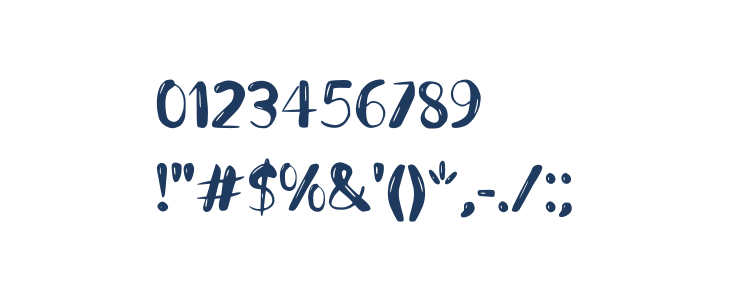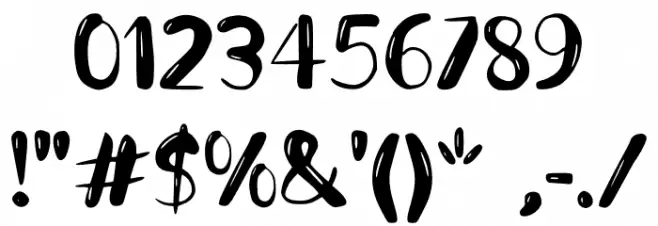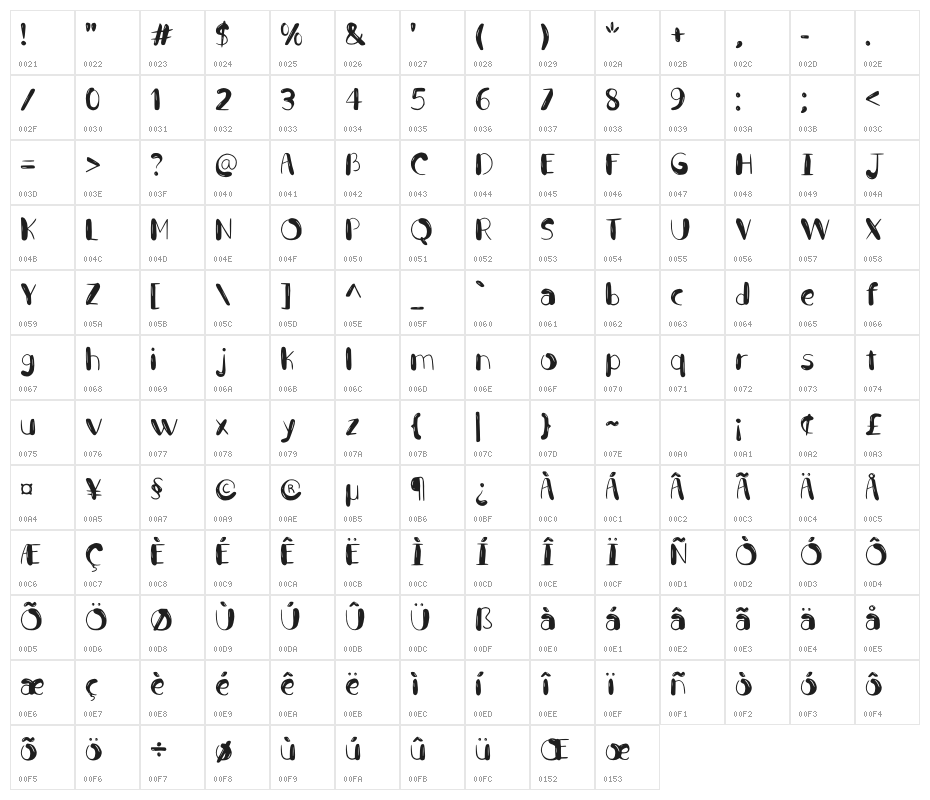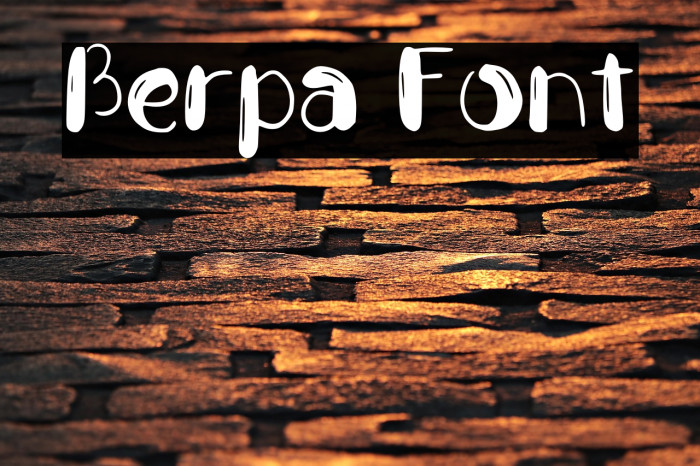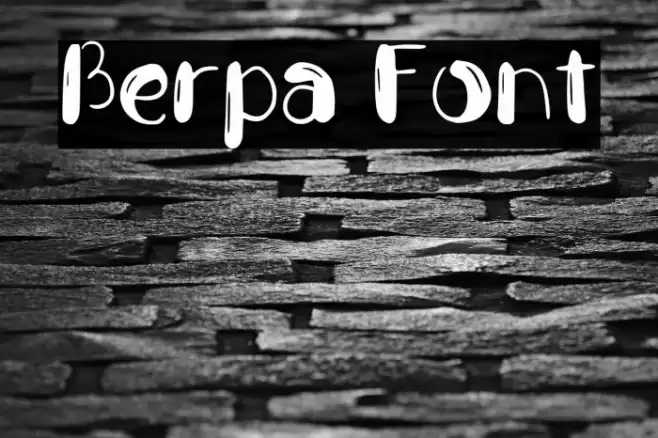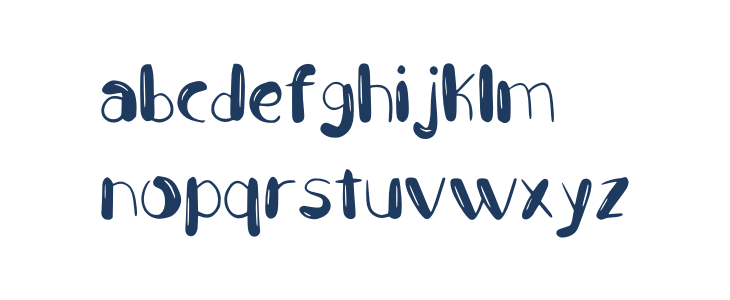
Berpa Font
Berpa Description
This playful and bold font features a handwritten style with a unique, artistic flair. The letters are characterized by their thick, uneven strokes, giving them a lively and dynamic appearance. The uppercase letters are bold and prominent, while the lowercase letters maintain a consistent flow with slightly more variation in stroke width. Numbers and special characters follow the same whimsical design, making them stand out with their quirky shapes. The overall look is informal and creative, perfect for projects that require a touch of personality and fun.
| Overall Style | Playful, Artistic |
| Use Case | Headlines, Logos, Creative Projects |
| Proposed Projects | Ideal for children's books, playful branding, creative posters, and informal invitations. |